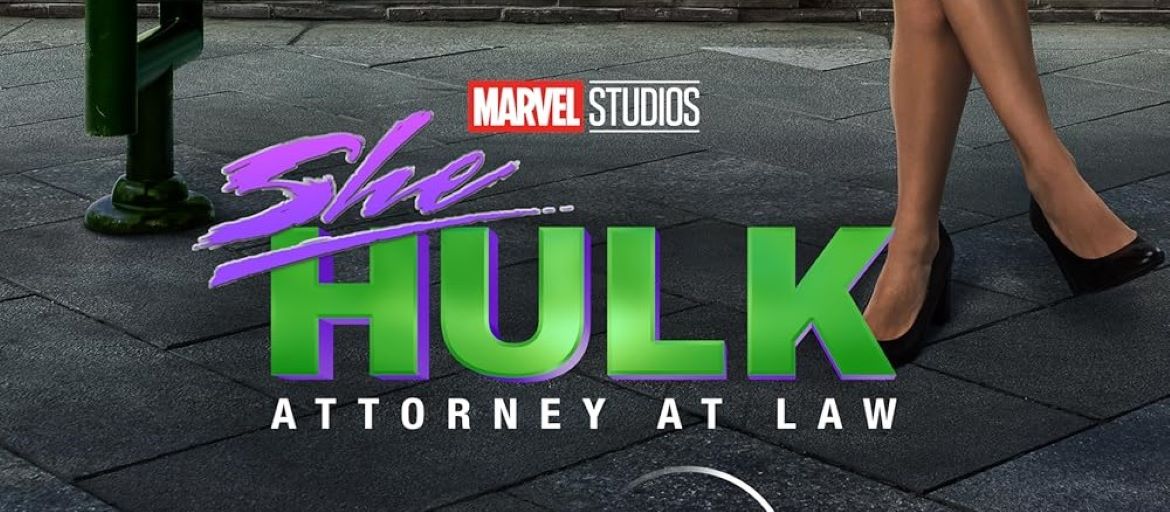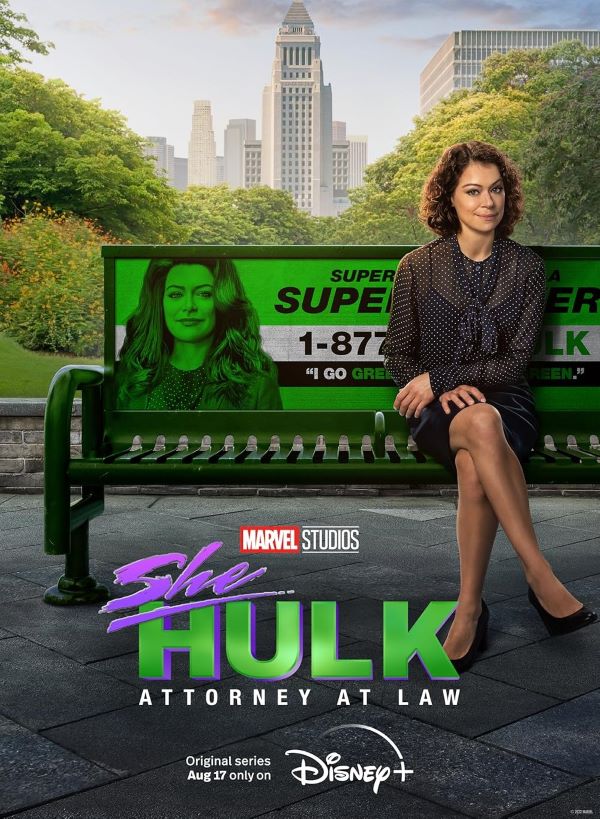
She-Hulk Font
What Font is She-Hulk?
The She-Hulk font design perfectly reflects the bold and confident personality of Marvel’s iconic superhero. The main typeface used is Tondu, created by The Northern Block, known for its strong, upright forms and smooth, rounded curves that exude power and approachability—just like Jennifer Walters herself. Alongside Tondu, the logo also uses Miami Viced, a commercial font that adds a sleek, modern edge with its neon-inspired aesthetic. Together, these fonts capture the balance between She-Hulk’s legal brilliance and her superhuman strength, making the design both powerful and stylish.
About She-Hulk
She-Hulk: Attorney at Law is a Marvel Studios television series released in 2022 on Disney+. Starring Tatiana Maslany as Jennifer Walters, the show follows a talented lawyer who becomes the green-skinned superhero after accidentally receiving a blood transfusion from her cousin, Bruce Banner (the Hulk). Blending superhero action with witty legal comedy, the series explores themes of identity, empowerment, and balancing everyday life with extraordinary abilities.